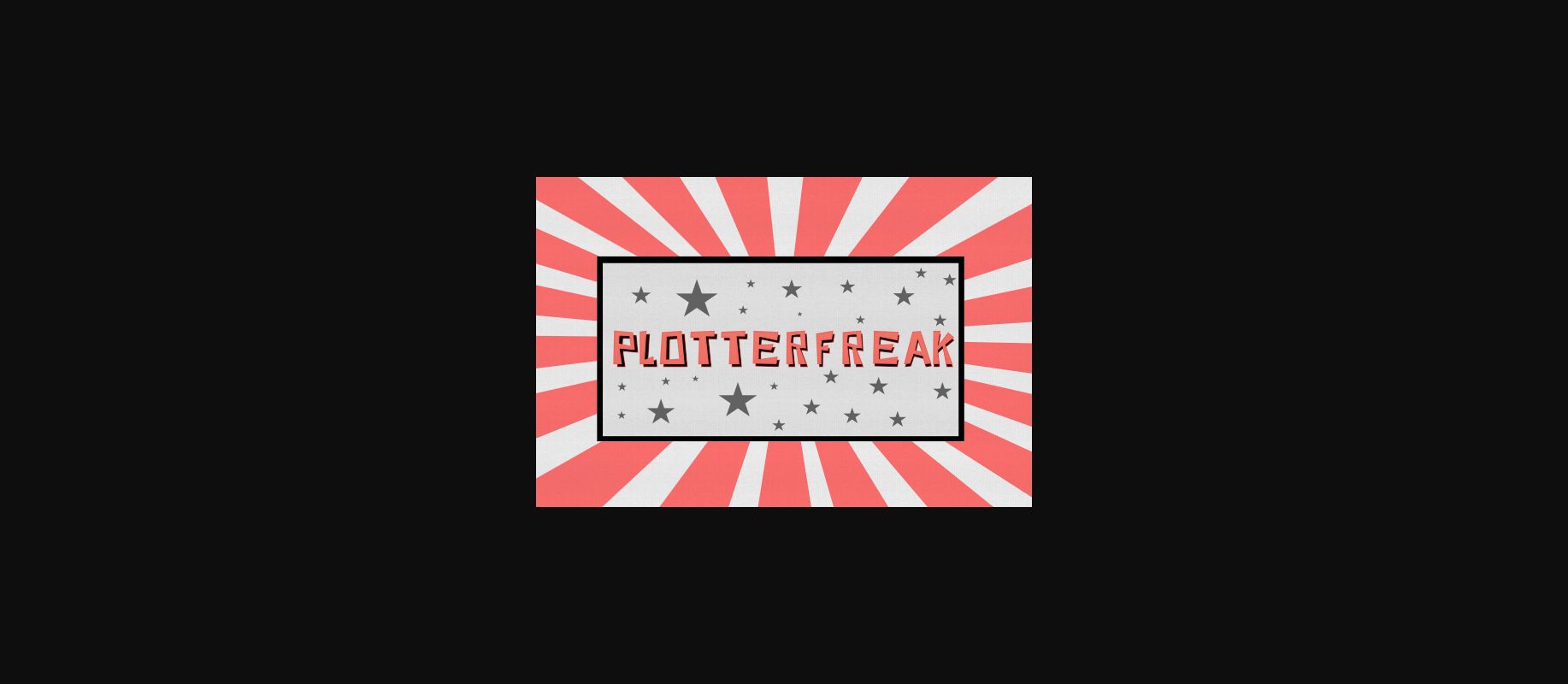
About Plotterfreak Font
The Plotterfreak is a carton styled freaky font. It’s is nice for spooky designs but can also be used to add a fun and unique touch to your designs.